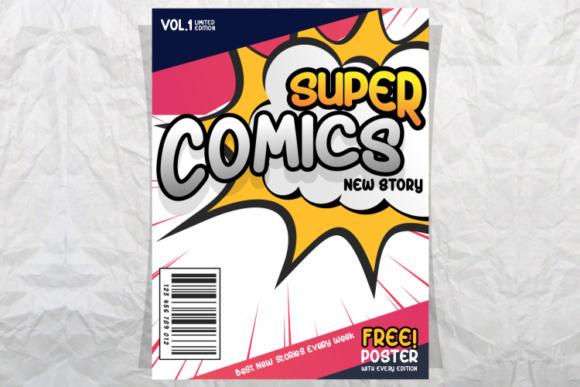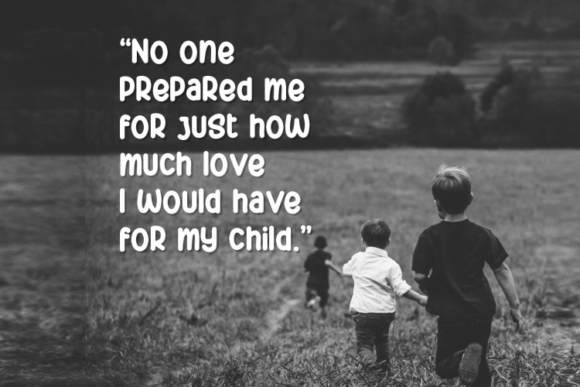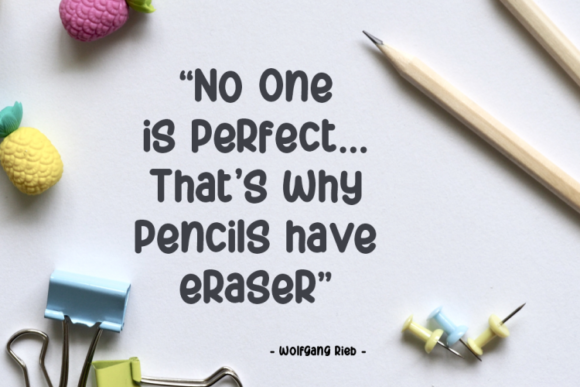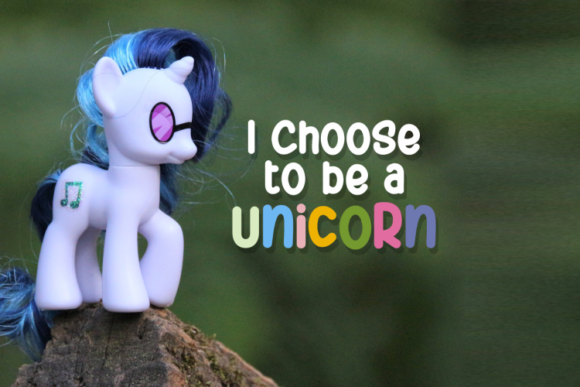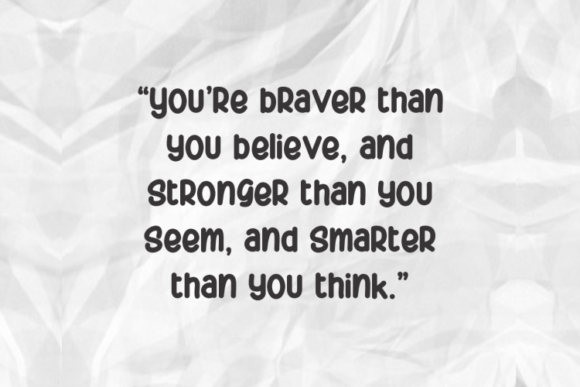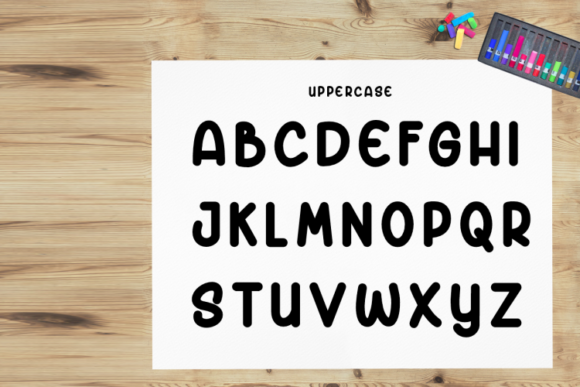
Introducing Big Boss Font: The Ultimate Choice for Modern, Unique, and Fun Designs
Are you a designer or crafter looking for a font that can add a touch of modernity, uniqueness, and fun to your designs? Look no further than the Big Boss font! This playful kids font with a cartoon style is perfect for a variety of purposes, including children’s projects, kids’ birthday parties, kindergarten materials, and comic books. In this article, we’ll explore the features and benefits of the Big Boss font and why it’s an excellent choice for your design needs.
What Makes Big Boss Font Stand Out?
The Big Boss font boasts a unique glyph and fun style that sets it apart from other fonts. Its modern and playful design makes it an ideal choice for projects that require a youthful and energetic feel. Whether you’re creating materials for kids or designing a comic book, this font is sure to capture the attention of your audience and leave a lasting impression.
Perfect for Playful Kids Font with Cartoon Style
The Big Boss font is specifically designed with kids in mind. Its cartoon-style characters and fun font style make it perfect for projects that require a playful and imaginative feel. From children’s books to kids’ party invitations, this font is sure to delight your young audience. Additionally, its unique design makes it an excellent choice for kindergarten materials, educational resources, and other projects that require a fun and engaging font.
Suitable for a Variety of Purposes
The Big Boss font is versatile and can be used for a range of purposes, including:
- Children’s projects: From storybooks to activity sheets, this font is perfect for creating engaging and fun materials for kids.
- Kids’ birthday parties: Create custom invitations, banners, and decorations with the Big Boss font to make your party planning a breeze.
- Kindergarten materials: Use this font to create educational resources, worksheets, and other materials that require a fun and playful design.
- Comic books: Add a modern and unique touch to your comic book designs with the Big Boss font.
Key Features of Big Boss Font
The Big Boss font comes with a range of features that make it an excellent choice for designers and crafters, including:
- Unique glyph: The font’s unique glyph design sets it apart from other fonts and makes it perfect for creating custom designs.
- Fun style: The Big Boss font has a fun and playful style that’s sure to capture the attention of your audience.
- Modern design: The font’s modern design makes it perfect for projects that require a contemporary feel.
- Cartoon-style characters: The font’s cartoon-style characters add a touch of playfulness and imagination to your designs.
Tips for Using Big Boss Font
To get the most out of the Big Boss font, here are some tips to keep in mind:
- Use it for kids’ projects: The font is specifically designed with kids in mind, so use it for projects that require a playful and fun design.
- Experiment with colors: The Big Boss font looks great in bright and bold colors, so don’t be afraid to experiment and find the perfect color scheme for your design.
- Pair it with other fonts: The Big Boss font pairs well with other fonts, so try combining it with other fonts to create a unique and interesting design.
In conclusion, the Big Boss font is an excellent choice for designers and crafters looking for a modern, unique, and fun font for their designs. Its playful kids font with cartoon style, unique glyph, and fun style make it perfect for a variety of purposes, including children’s projects, kids’ birthday parties, kindergarten materials, and comic books. With its versatility and range of features, the Big Boss font is sure to become a staple in your design toolkit.